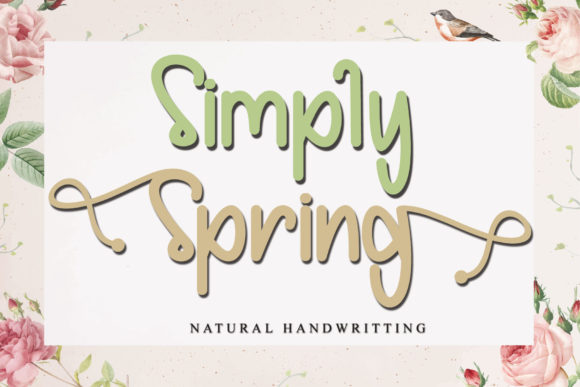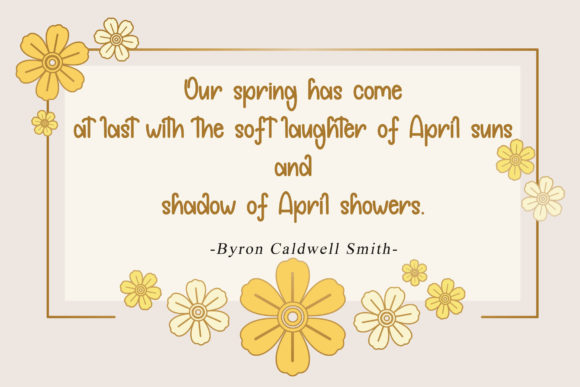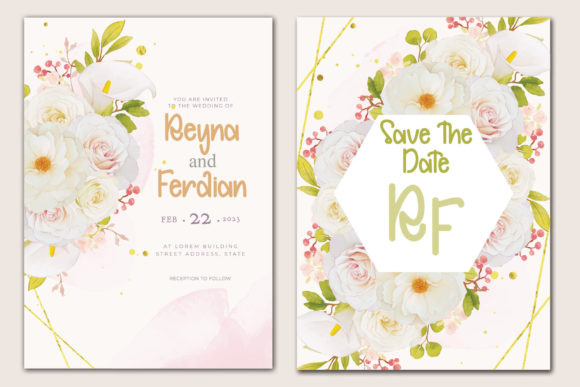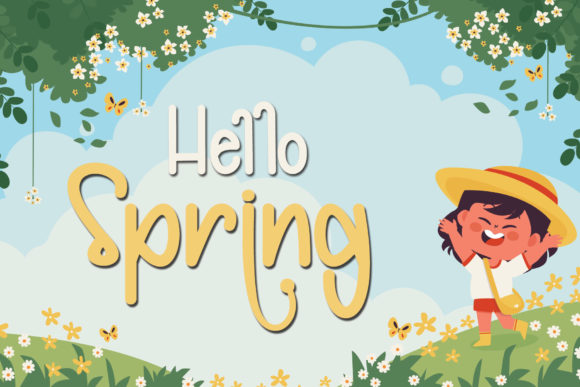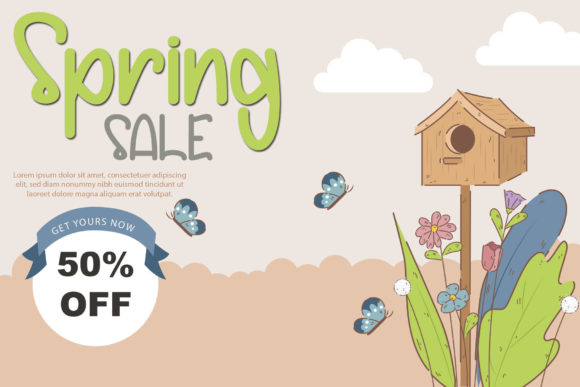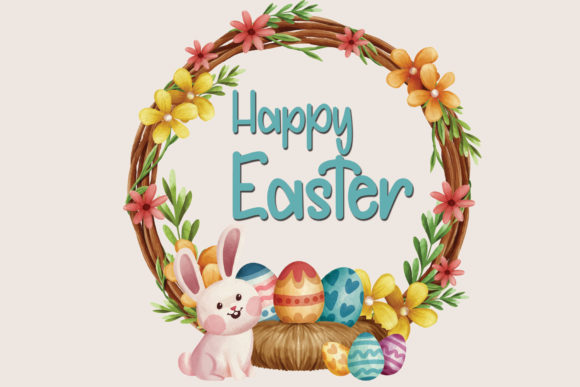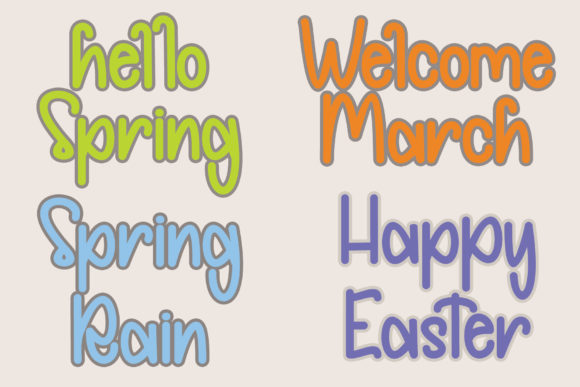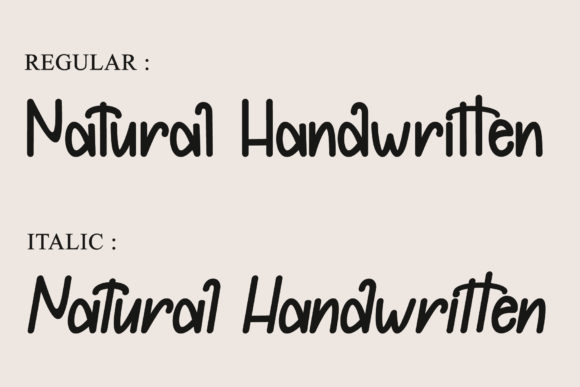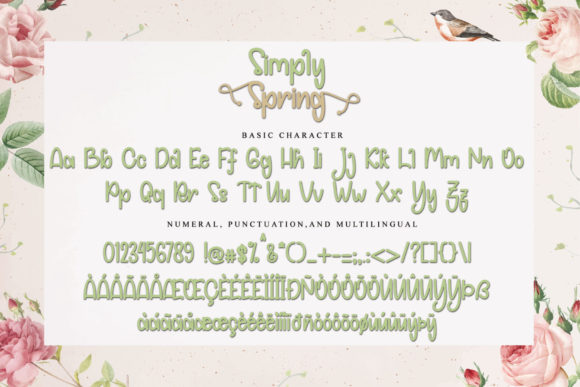
Simply Spring Font
About Simply Spring Font
Simply Spring feels equally delicate and trendy. It looks stunning on wedding invitations, thank you cards, quotes, greeting cards, logos, business cards and every other design which needs a handwritten touch.